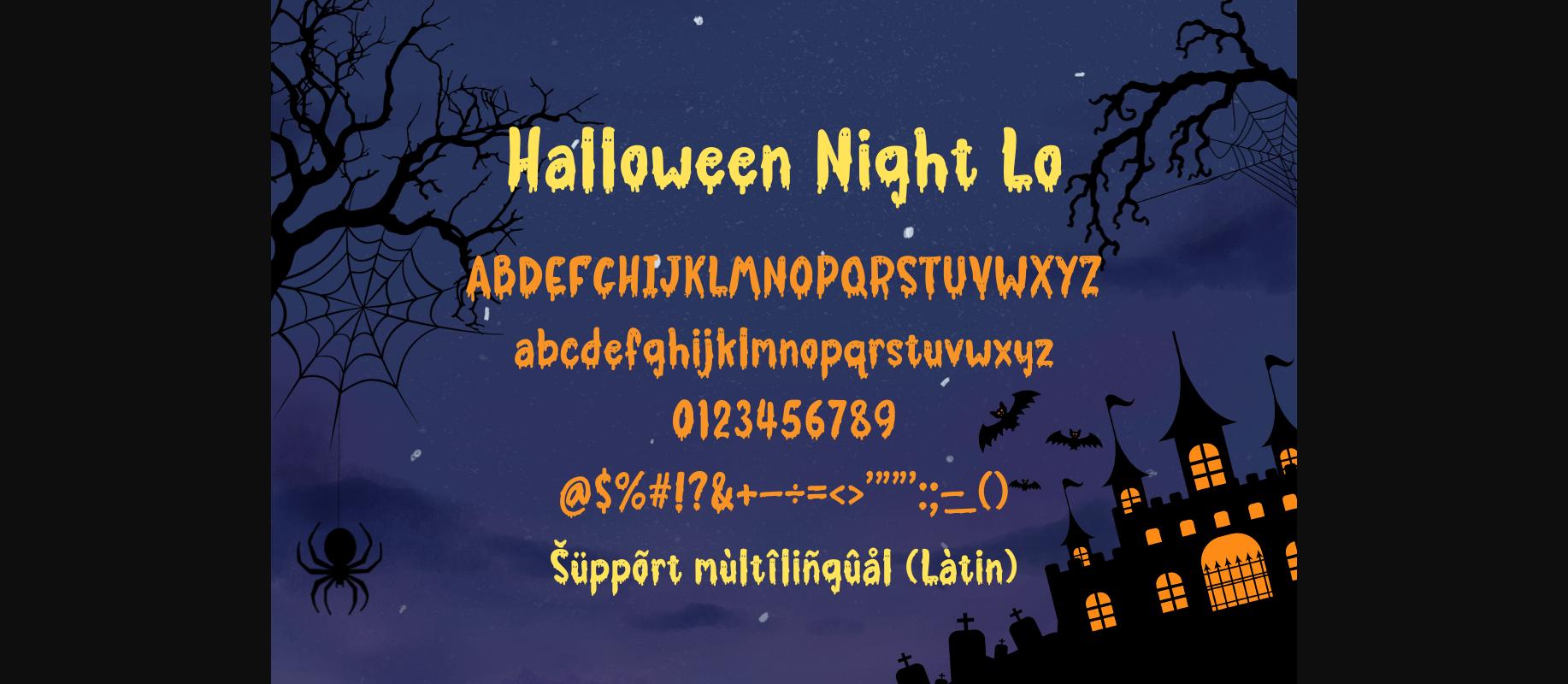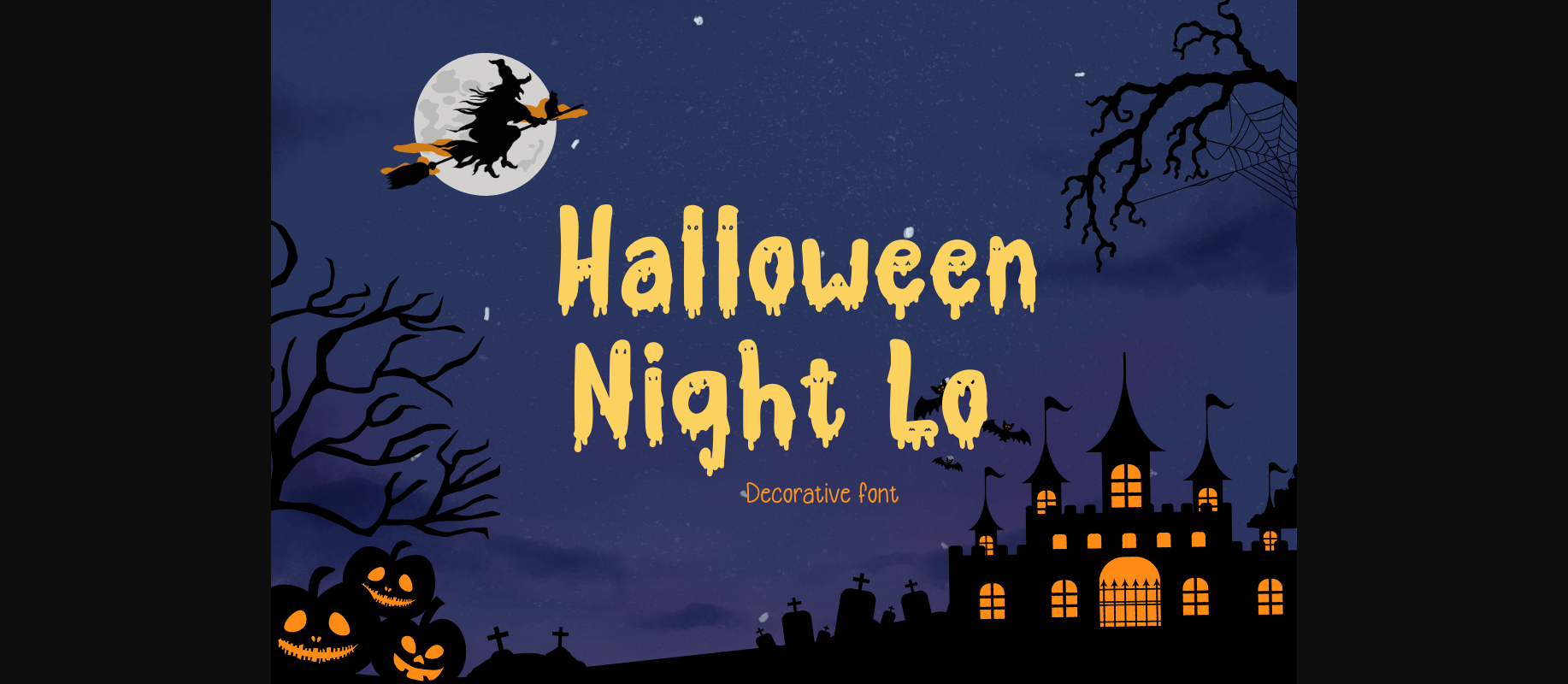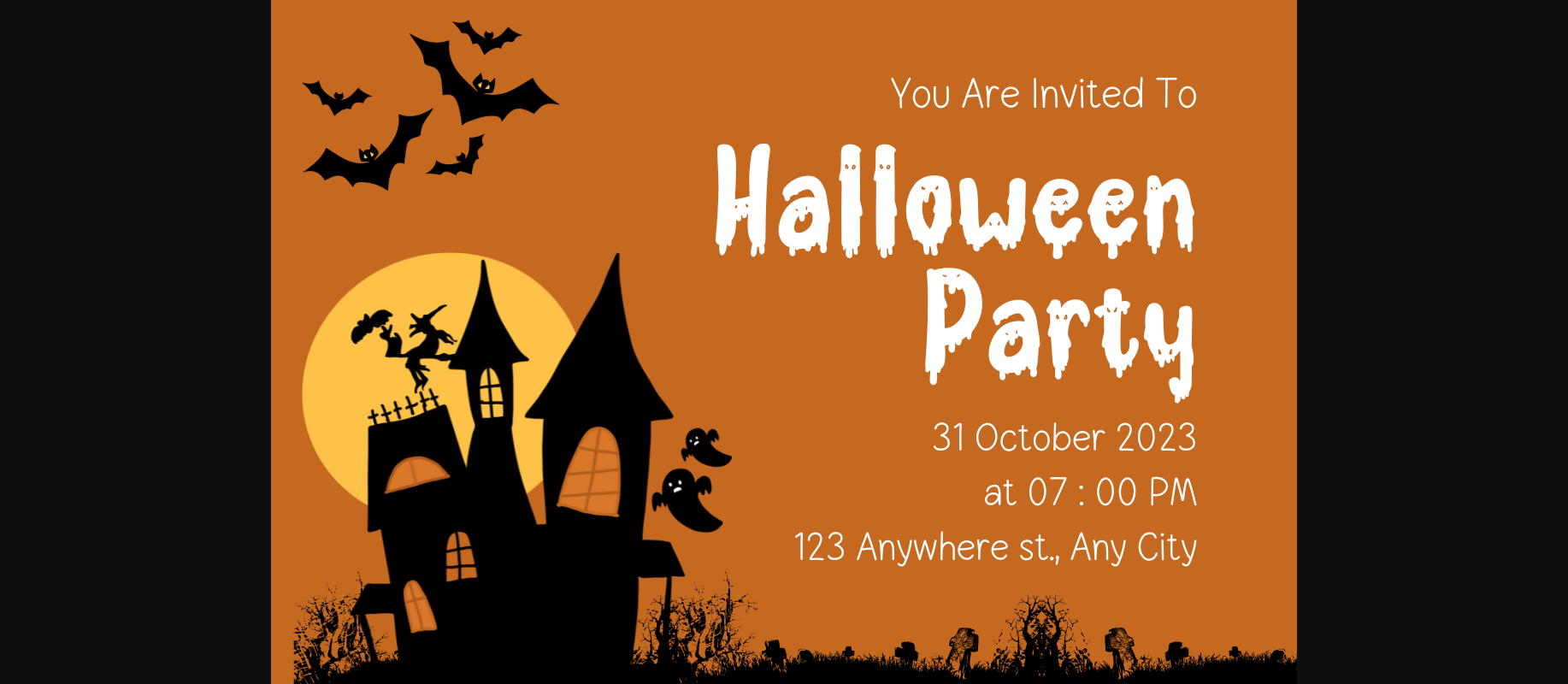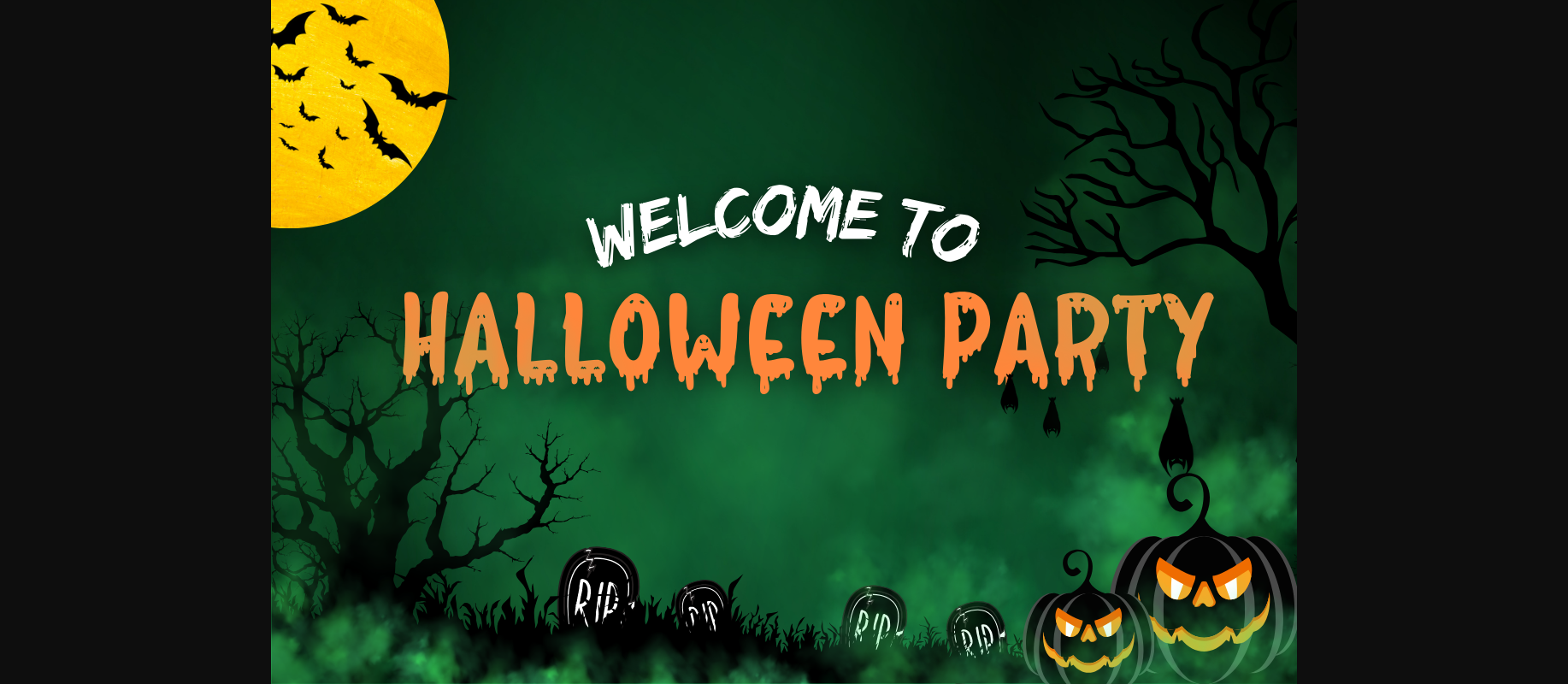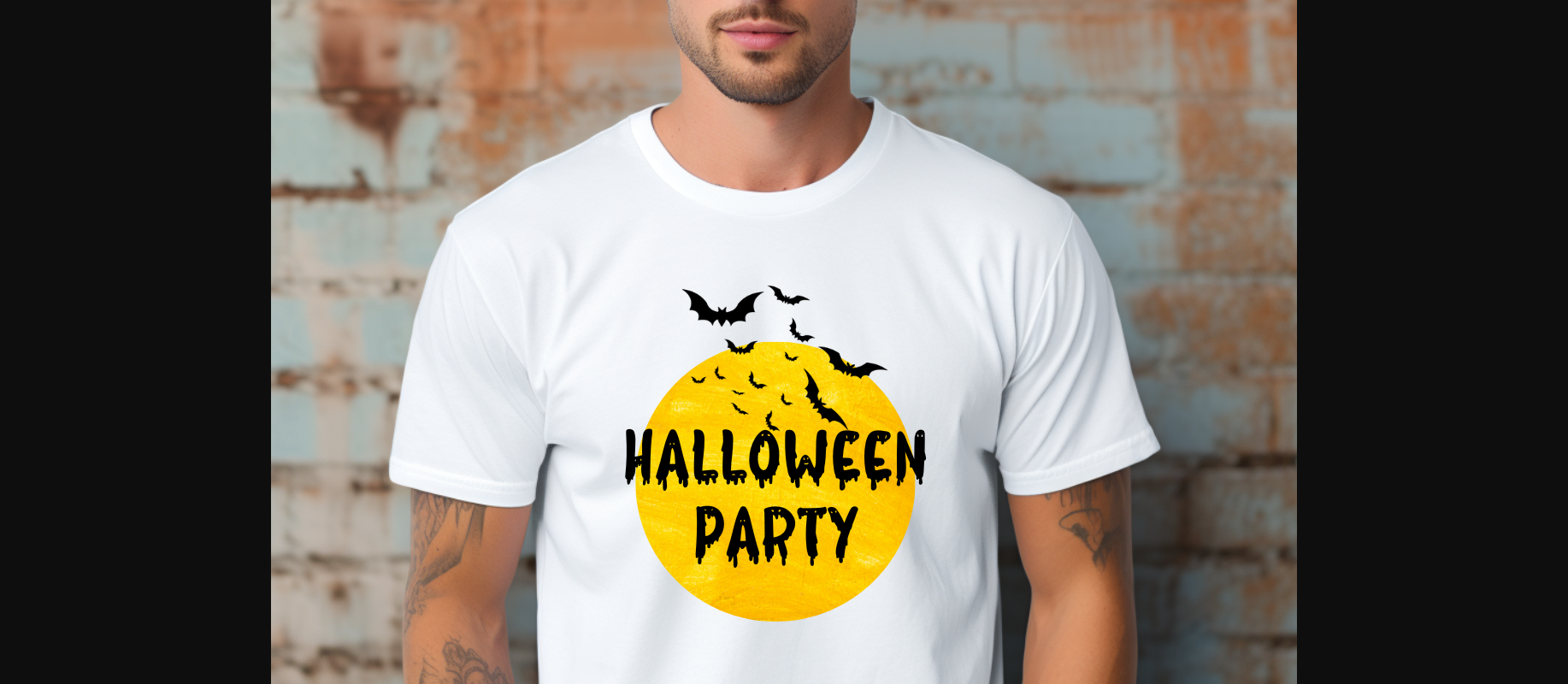
About Halloween Night Lo Font
Halloween Night Lo is a thick-lettered and a spooky Halloween decorative font with a dripping style. It is perfectly suitable for any Halloween-related project or crafty idea! such as shirts, retro designs, Halloween invitations, mugs, stickers, playful quotes, creating posters, logos, greeting cards, packaging, decorating the illustration and so much more!